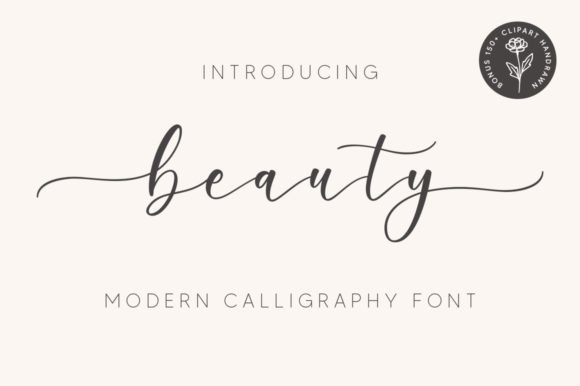
The Perfect Script for Love and Romance
Have you ever sat down with a blank page and a pen, trying to put into words the emotions you feel for that special someone? For many of us, love letters and romantic gestures are a big part of showing our affection, and the right font can make all the difference. Whether it’s a handwritten note or a beautifully designed wedding invitation, the right script font can evoke feelings of warmth and intimacy.
Enter the Beauty Font, a dainty and flowing script font designed to capture the essence of romance and love. With its elegant curves and delicate lines, Beauty Font is the perfect addition to any design project that requires a touch of whimsy and charm. As a PUA-encoded font, it’s incredibly easy to access all its glyphs and swashes, making it a valuable asset for designers looking to add a personal touch to their work.
Key Features of Beauty Font
- Unique Characteristics: The font features a unique blend of modern and classic elements, with elegant lines, subtle flourishes, and a sophisticated feel that sets it apart from other fonts.
- Kerning and Ligatures: The font includes advanced kerning and ligature features, ensuring that text flows smoothly and professionally, even at small font sizes.
Beauty Font Review
Overall, I’m impressed with the Beauty Font, but as with any font, it has its strengths and weaknesses.
- Cursive script: The font’s cursive script is beautiful and elegant, making it perfect for wedding invitations or other formal events.
- Customization options: Beauty Font offers a range of customization options, including different font weights and sizes.
- Complexity: Beauty Font can be quite complex to use, especially for beginners.
- Not ideal for body text: Due to its cursive script, Beauty Font is not ideal for body text and may be difficult to read in long paragraphs.
Overall, I would give Beauty Font 4 out of 5 stars. It’s a beautiful font with a lot of potential, but it may require some practice to master its use. If you’re a beginner, you may want to start with a simpler font and work your way up to Beauty Font.
Beauty Font is perfect for:
- Designing beauty and wellness branding materials.
- Creating fashion and lifestyle blog posts.
- Designing social media graphics and advertisements.
Tip: Use Beauty Font in combination with other design elements to create a cohesive and visually appealing design.
Alternatives to “Beauty Font” for Designers
Great Vibes Font is a modern, elegant script font that is perfect for creating a sophisticated and luxurious feel. It is ideal for use in branding, advertising, and editorial design. Great Vibes Font is a good alternative to Beauty Font as it also has a high-end feel, but with a more refined and sophisticated look.
Alex Brush Font is a beautiful, handwritten script font that is perfect for creating a personal and emotive feel. It is ideal for use in branding, packaging, and editorial design. Alex Brush Font is a good alternative to Beauty Font as it also has a high-end feel, but with a more relaxed and organic look.
Dancing Script Font is a elegant and sophisticated script font that is perfect for creating a high-end feel. It is ideal for use in branding, advertising, and editorial design. Dancing Script Font is a good alternative to Beauty Font as it has a similar high-end feel, but with a more dynamic and playful look.